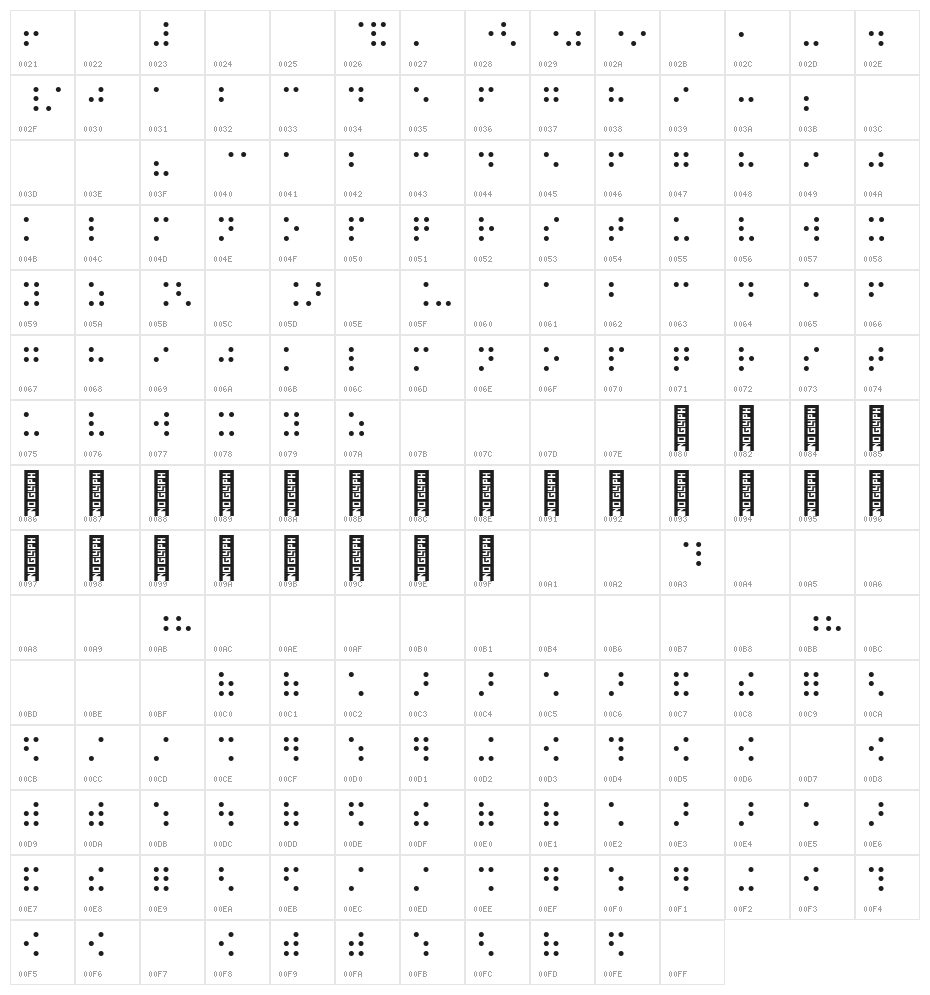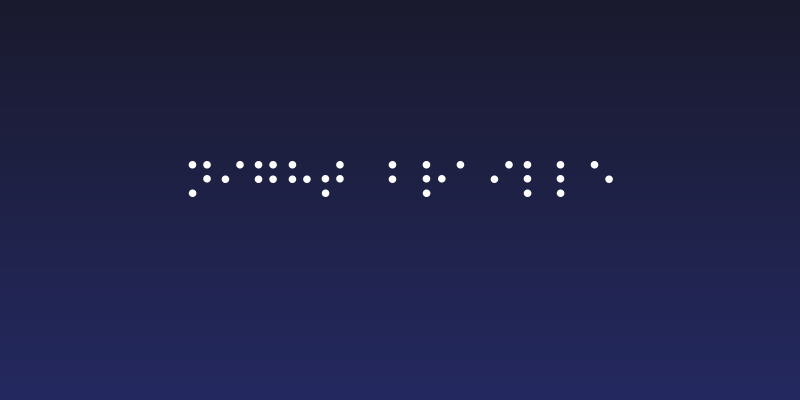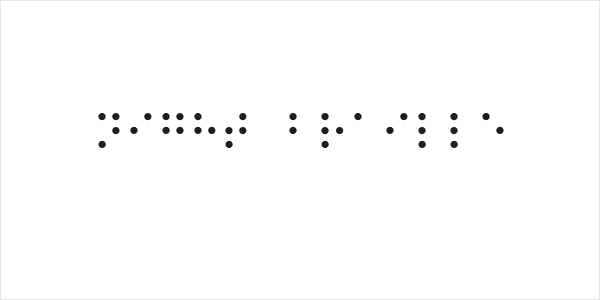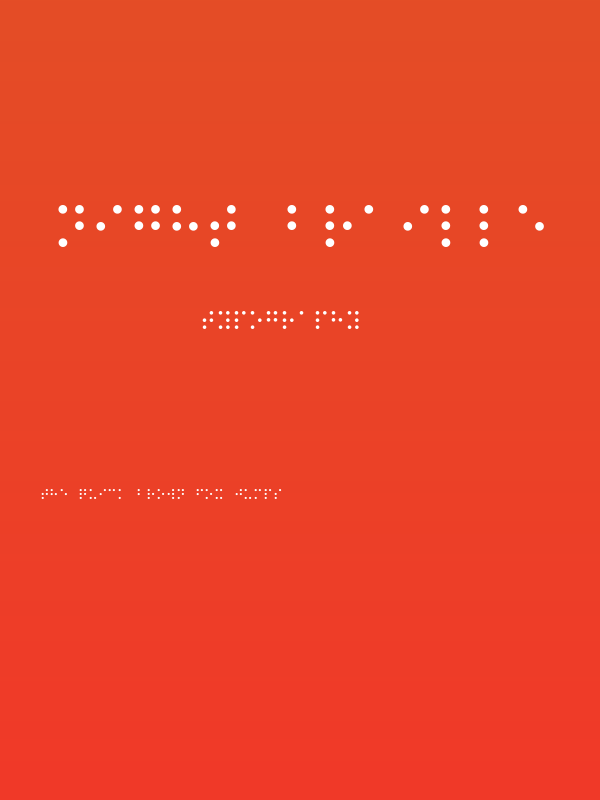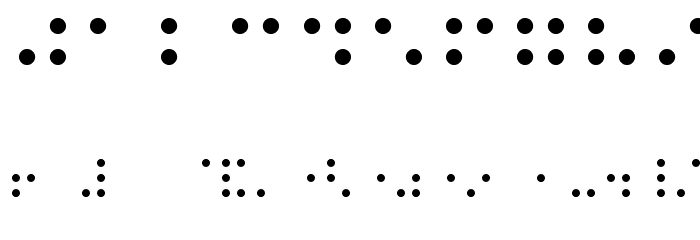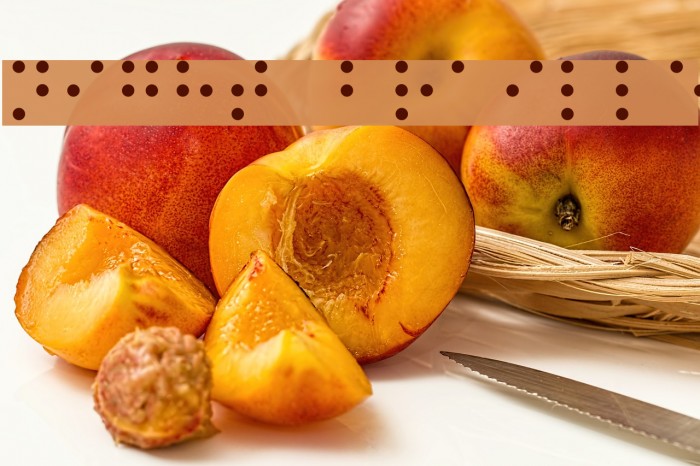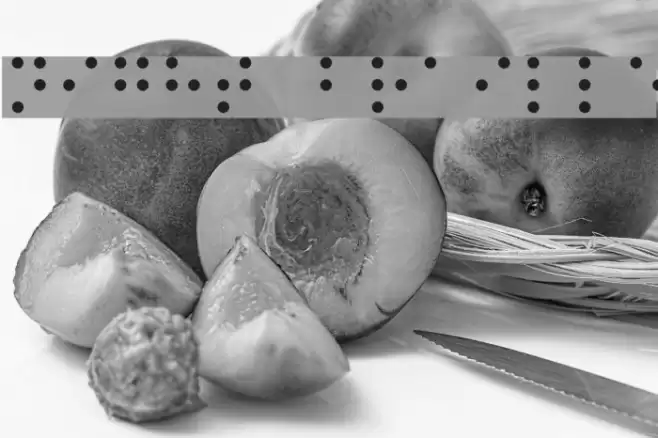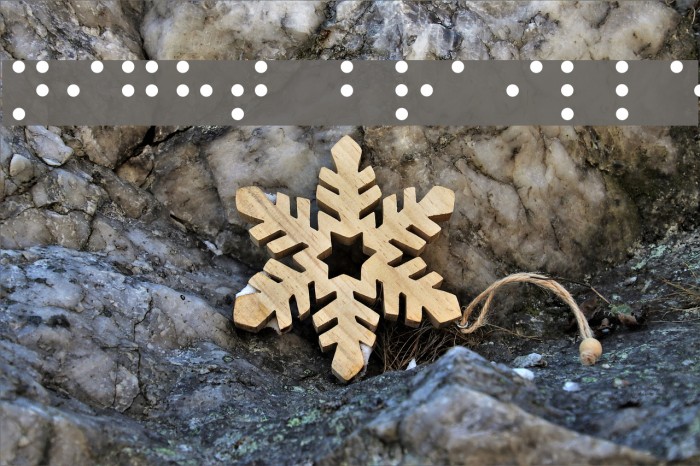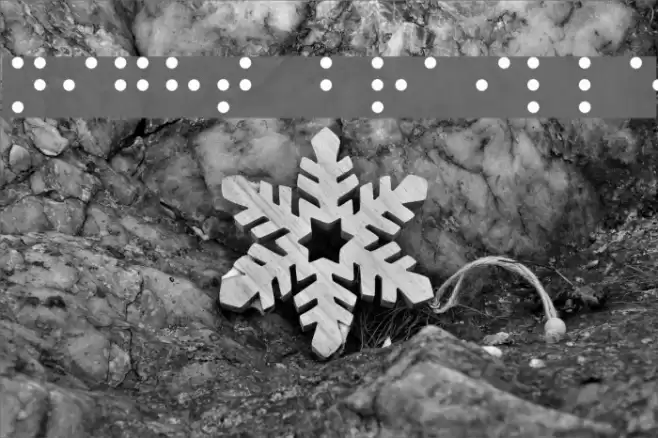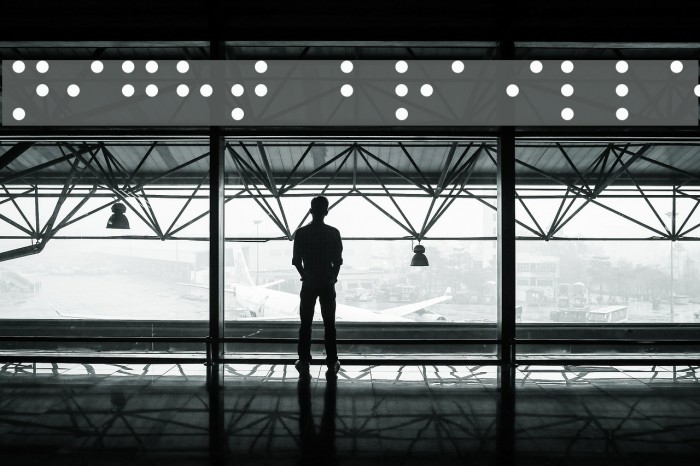
Night Braille Font
Night Braille Description
This font is a tactile writing system used by people who are visually impaired. It consists of patterns of raised dots arranged in cells of up to six dots in a 3x2 configuration. Each cell represents a letter, numeral, or punctuation mark. The design is highly functional, allowing for efficient reading through touch. The spacing between the dots and cells is carefully measured to ensure clarity and ease of reading. This system is essential for accessibility, providing a means for visually impaired individuals to read and write independently.
| Overall Style | Functional |
| Use Case | Accessibility, Educational materials |
| Proposed Projects | Ideal for creating accessible reading materials, signage, and educational tools for the visually impaired. |